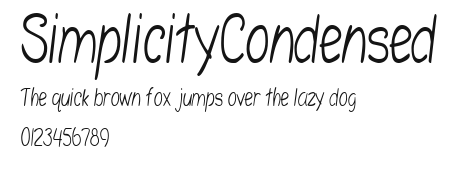
• Font Name: SimplicityCondensed
• Full Font Name: SimplicityCondensed
About SimplicityCondensed.ttf
SimplicityCondensed.ttf is a modern, elegant sans-serif font designed for ultimate readability and visual harmony. Perfect for branding, headlines, web design, and print materials.